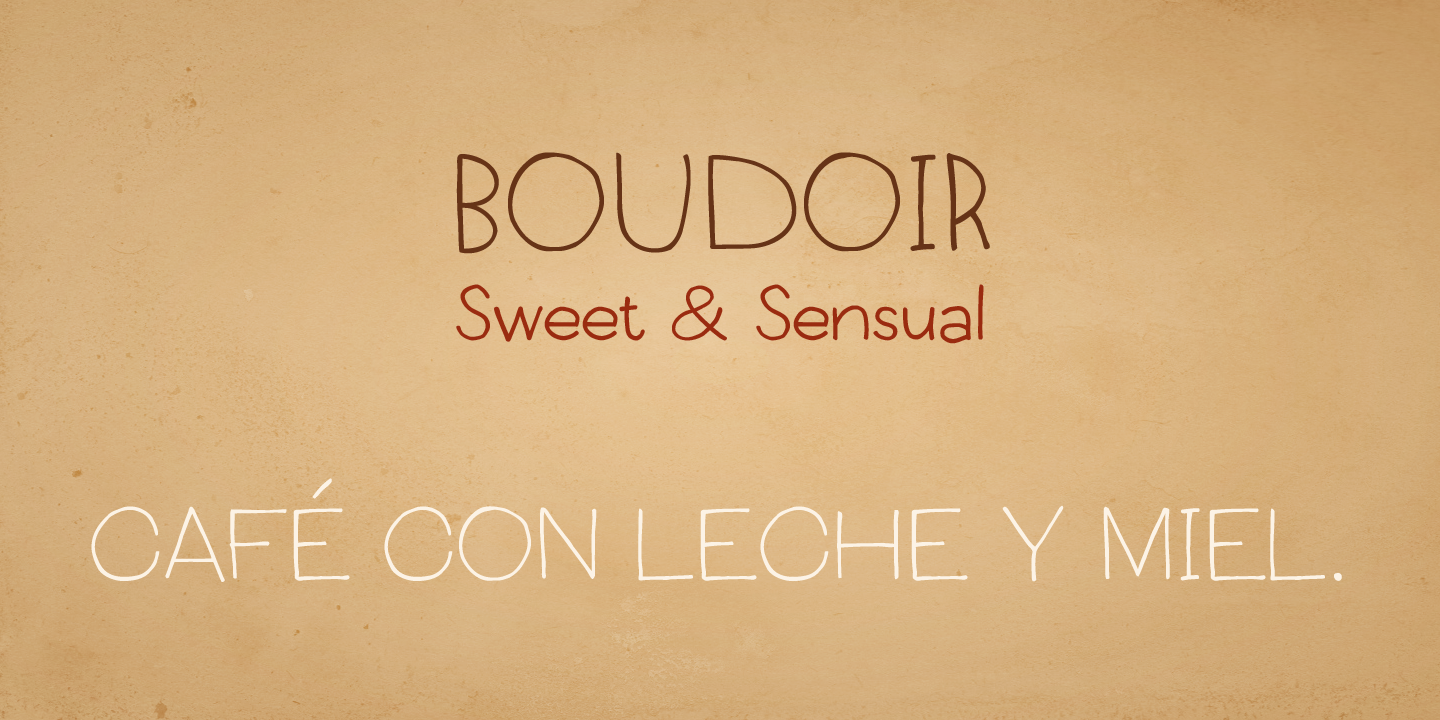
Boudoir Font is perfect for intimate photography studios, luxury lingerie brands, romantic bedroom decor companies, sophisticated beauty salons, elegant bridal boutiques, upscale feminine wellness centers, and intimate lifestyle magazines. This seductive typeface embodies feminine allure and private elegance, bringing sophisticated intimacy and luxurious romance to any design project celebrating feminine beauty and intimate luxury experiences.
What makes Boudoir Font exciting is its exquisite combination of feminine sophistication and intimate elegance that perfectly captures the essence of private luxury and romantic femininity. The font features graceful letterforms with sensual curves and elegant proportions that evoke both the privacy of intimate spaces and the sophistication of luxury feminine experiences. Its alluring character appeals to discerning women while maintaining excellent readability for both intimate branding materials and luxury feminine marketing applications.
The Boudoir Font family includes multiple weights from light to bold, complete with elegant italic variations and feminine ornamental elements. The character set features romantic ligatures, intimate symbols, elegant alternates, and sophisticated decorative accents that enhance the font's luxurious appeal. Advanced OpenType features provide creative flexibility for international luxury feminine brands and multilingual intimate lifestyle applications.
Whether you're designing intimate luxury brands, creating romantic photography materials, or developing sophisticated feminine content, Boudoir Font Free Download provides exceptional elegance and versatility. This alluring typeface transforms ordinary text into sophisticated intimate experiences that celebrate feminine luxury while establishing prestigious brand recognition in competitive intimate photography and luxury feminine lifestyle marketplaces.